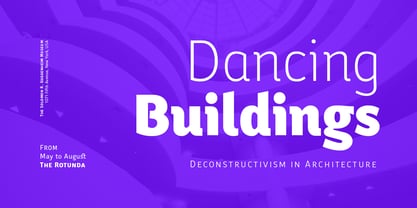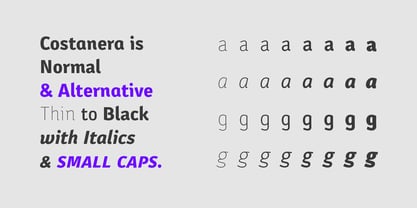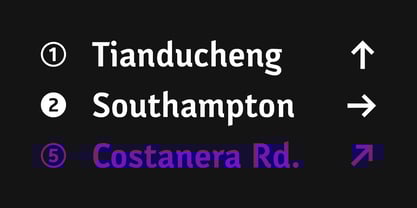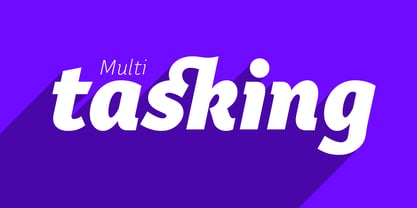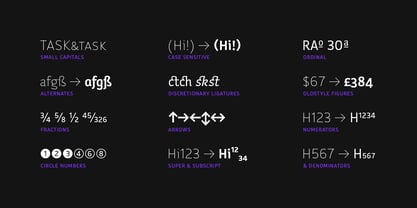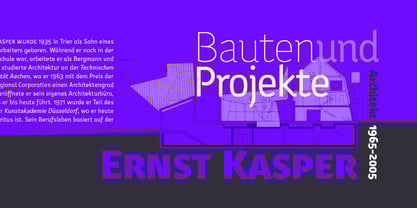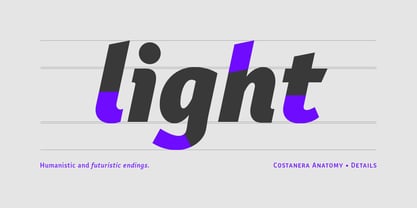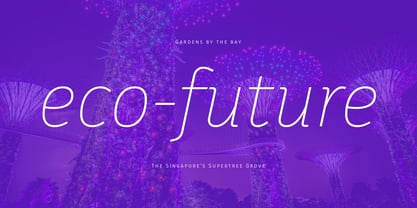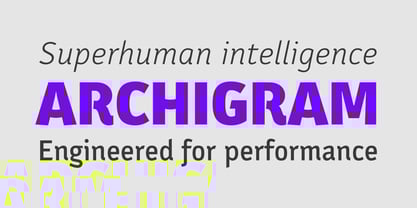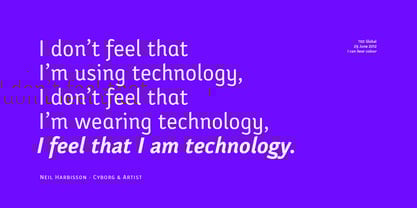
The Costanera Font Family was designed by Raúl Israel and published by Compañía Tipográfica de Chile. Costanera contains 32 styles and family package options. More about this family
Costanera is a neohumanist typeface with both soft strokes and endings, which is inspired by 90s typefaces. It has an organic aspect and curved finials associated to the early calligraphy, while its straight angles give Costanera a technological and futuristic impression.
Costanera weights go from thin to black, thus it can be used in short-impact phrases ideally using Black or Thin weight and extensive texts selecting the Book version.
On the other hand, due to its calligraphic-futuristic features Costanera is perfectly suitable for different fields, such as vanguard technology, architecture, and signage topics.
This typeface is composed of a Normal and Alternative version, adding 32 weights in total. Stylistic sets, small caps, ligatures, lining and old style numbers, fractions, circle numbers and arrows are part of the Opentype features. Moreover, this project comes with 790 glyphs that allows to write in 219 languages.